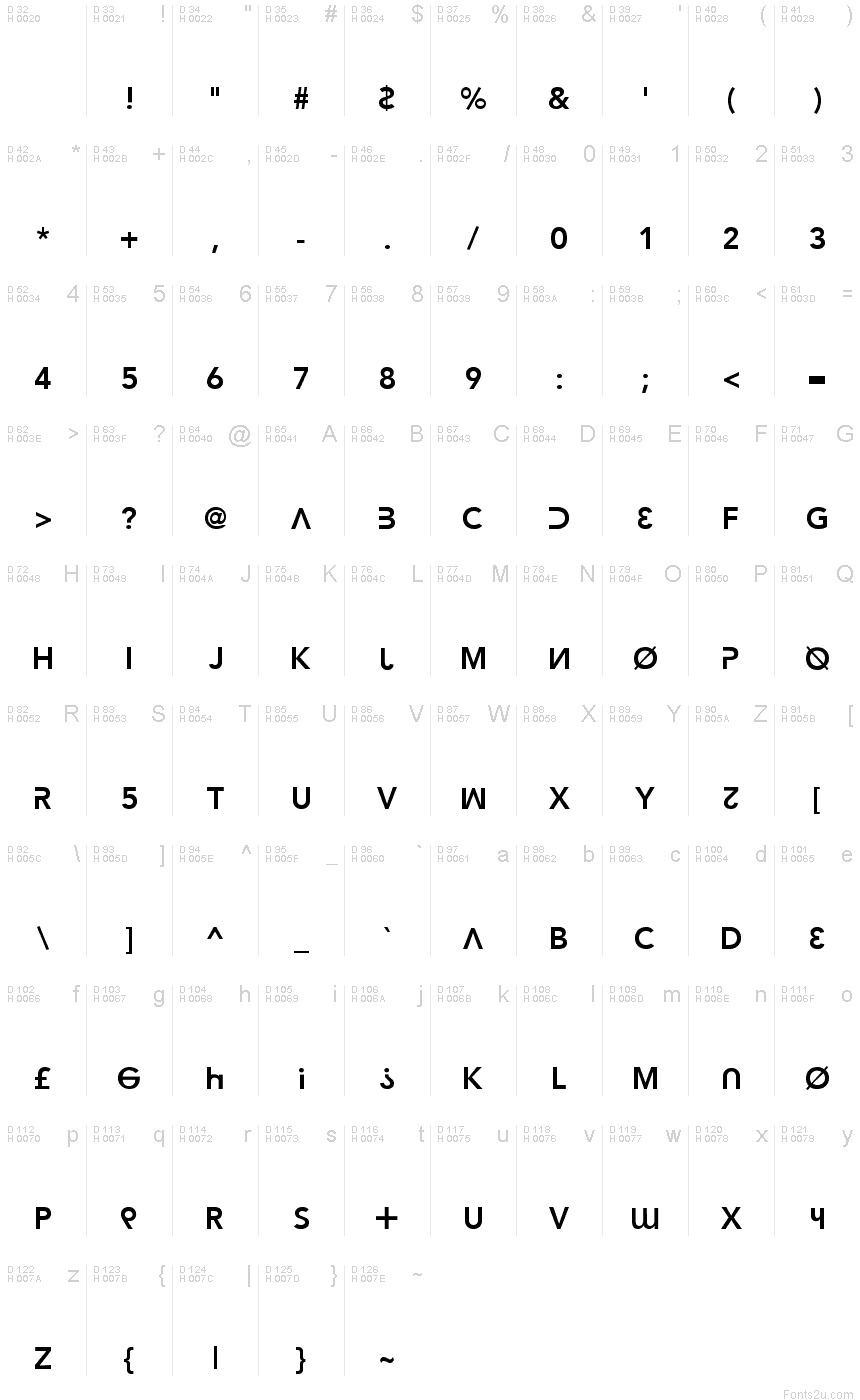
Hacker Argot
Hacker Argot font by Andi Jones is a free futuristic display typeface that turns the alphabet into a visual code. Bold, blocky forms snap into place with crisp verticals and diagonals, while flipped and mirrored letters create that instant “underground terminal” vibe. The overall texture feels tight and mechanical, like characters stamped onto a retro mainframe screen, giving your layouts a built‑in sense of secrecy and subversion.
Using Hacker Argot, you can push cyberpunk posters, hacker conference branding, tech zines, glitch art, sci‑fi title cards, album covers, and game menus into full-on rogue-signal territory. This free font works best big and loud, where its mirrored logic is easy to read and visually striking. For supporting text, pair it with a clean, neutral sans-serif so the strange geometry of Hacker Argot stays the star.